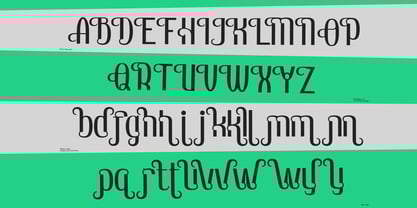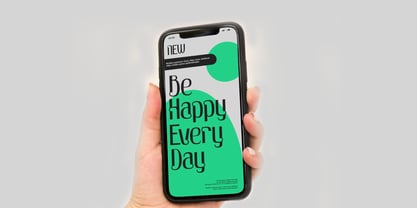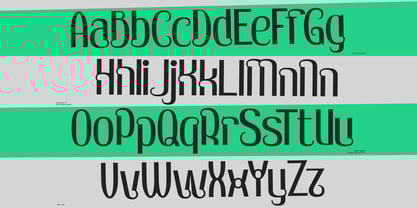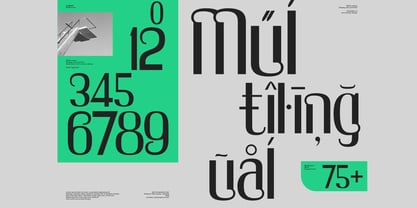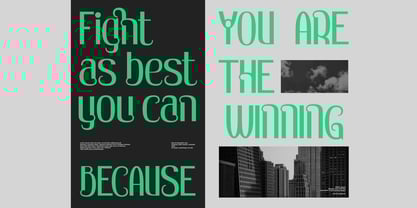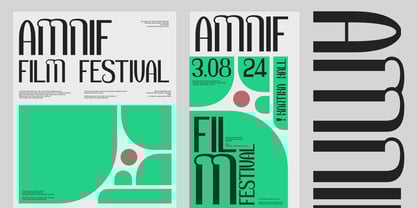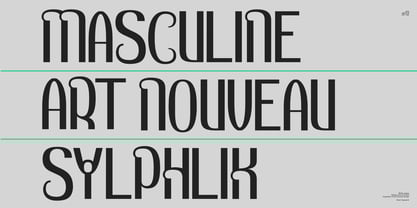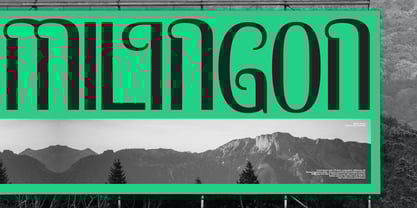
Bhilik
by Khoir
The Bhilik Font Family was designed by Muhammad Romzul Khoir and published by Khoir. Bhilik contains 1 styles.
A fairly tall sans serif font with a special shape, a touch of art nouveau design style combined with a sleek minimalist style, showing its own charm with its buns and curls, equipped with 75+ languages ​​and font alternatives that can be adjusted to your design style. This font is suitable for branding, social media, logos, magazine posters and many others. --- - Bhilik - Uppercase - Lowercase - 75+ Language - Alternate So what are you waiting for? immediately purchase this font, feel free to comment, or send me my PM, Thank you for seeing